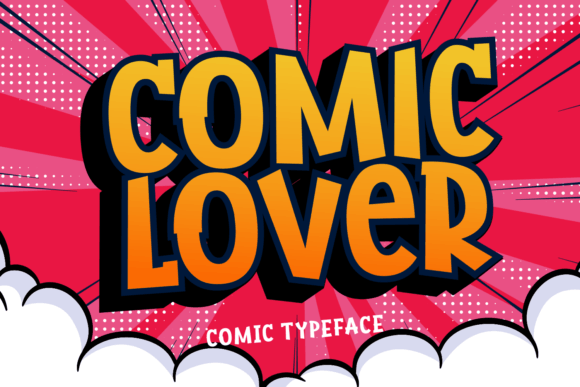
Embark on a whimsical adventure with Comic Lover Font, a playful and enchanting display font that will spark joy and ignite imagination in your creative endeavors! Crafted with meticulous attention to detail, Comic Lover embodies the carefree spirit of comic book typography, inviting you to add a touch of nostalgia and infectious enthusiasm to your designs.
This versatile font empowers you to express your creativity effortlessly, whether you're crafting eye-catching posters, vibrant flyers, captivating web graphics, or unique fabric prints. Its bold and energetic strokes exude a retro charm that will transport your audience back to the golden age of comics.
Beyond its aesthetic allure, Comic Lover Font is a technical marvel. Encoded with PUA, it grants you effortless access to a universe of glyphs, ensuring that your designs overflow with character and personality. Unleash your imagination and let Comic Lover Font become your trusty companion in creating unforgettable visual experiences that will leave an indelible mark on your audience's hearts and minds.